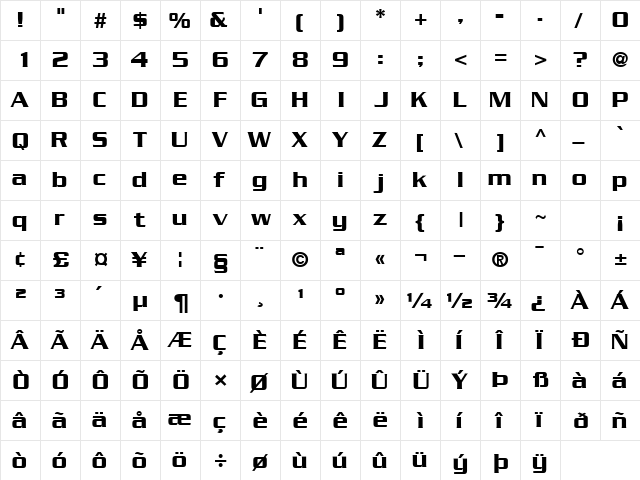
BoostSSK Regular
Design Context for BoostSSK Typeface
BoostSSK takes a measured approach to typography — its balanced proportions and neutral character make it a reliable workhorse for both digital and print work.